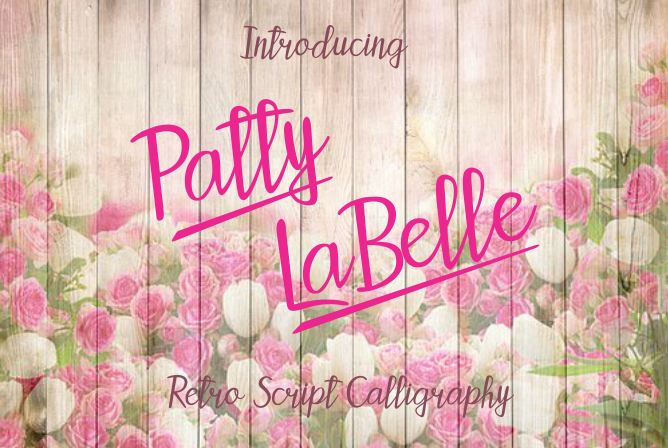
Preview and download Patty LaBelle Font. Created by Jaime Rangel Castro in Script Old School styles with Free for personal use license.
This font is partial. For partial version use ( or ) after a letter to display the Swashes and use _ to display tt ligature. Example: Pa_y( LaBelle) Terms of use: Free for personal use only. For commercial purpose and use of the complete version, please read Patty LaBelle-Readme.txt File. The complete version include: - Alternates by using Open Type Features or PUA for b f p s v w r and &. - Ligatures by using Open Type Features or PUA for rr and tt. - 15 swashes by using Open Type Features or PUA. Fonts & Symbols for full version are listed in the Readme File. |